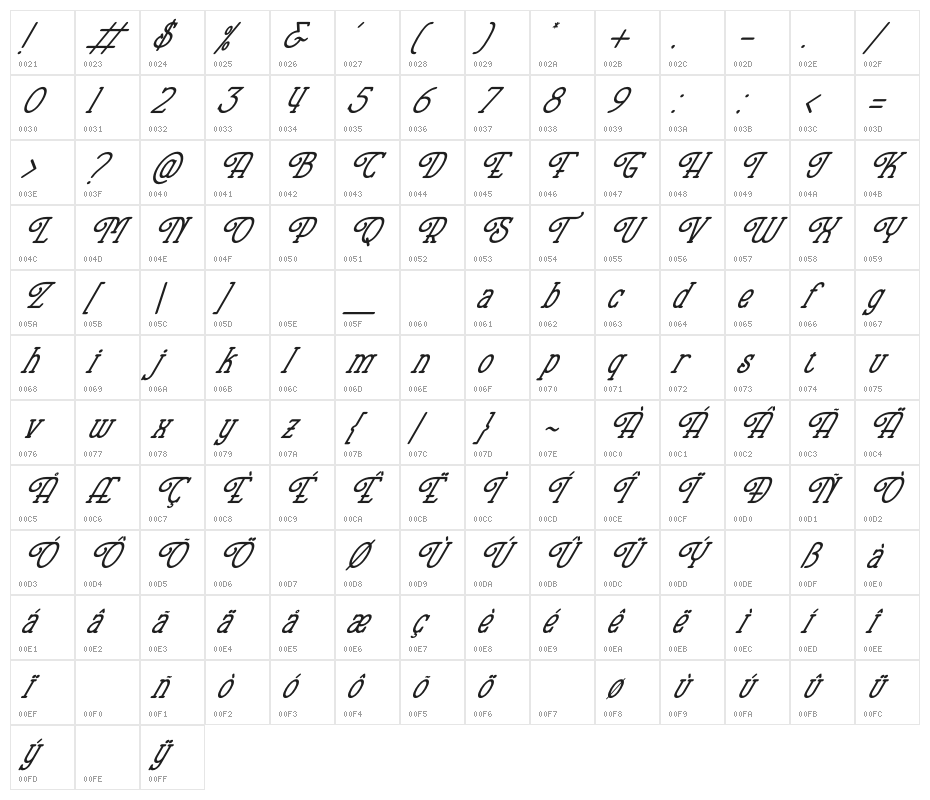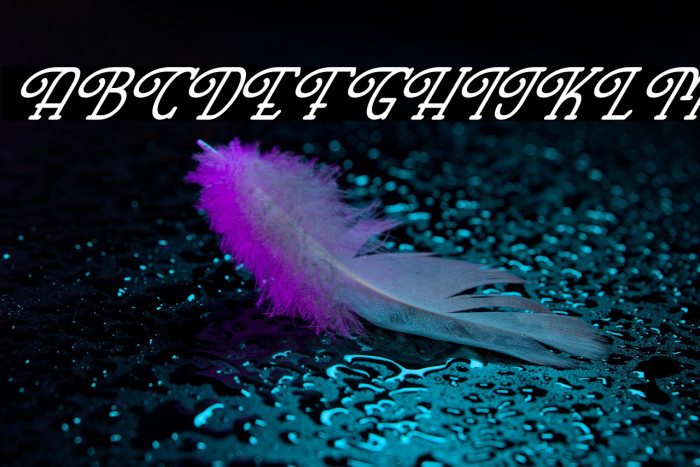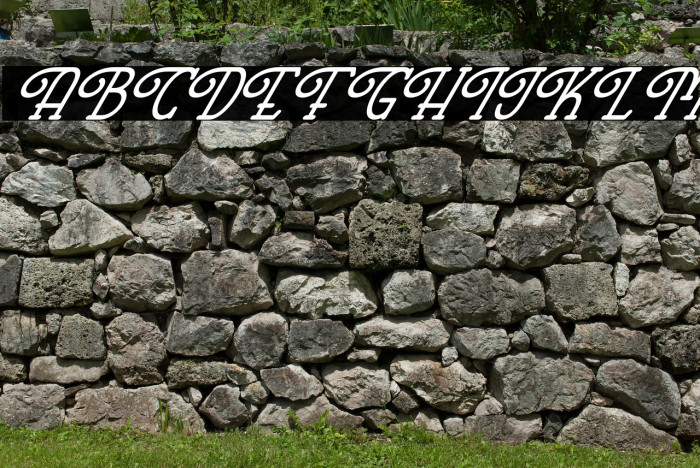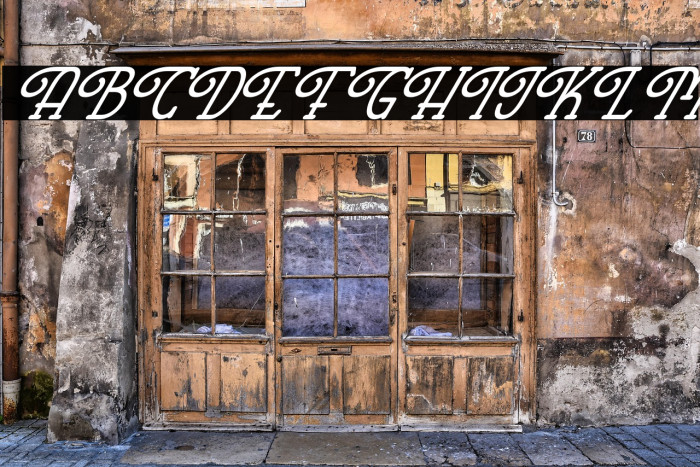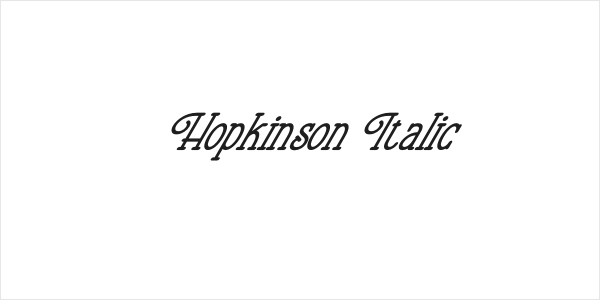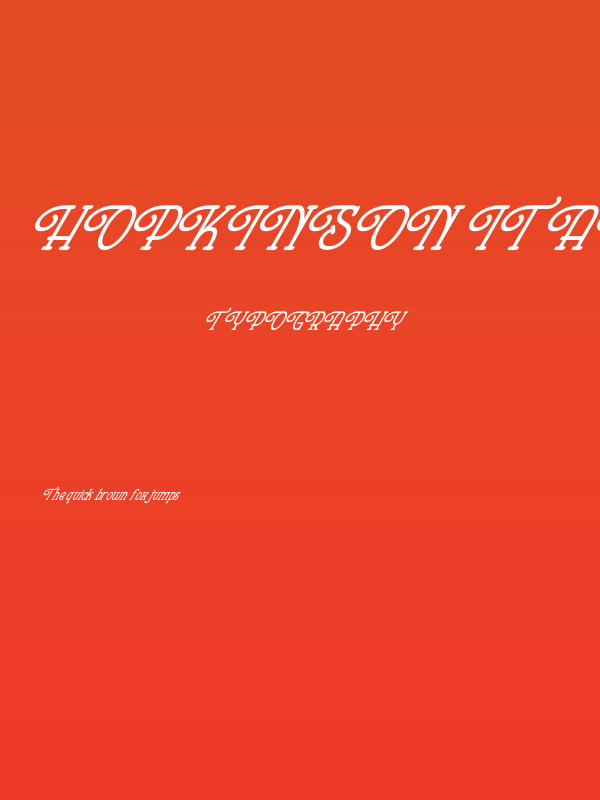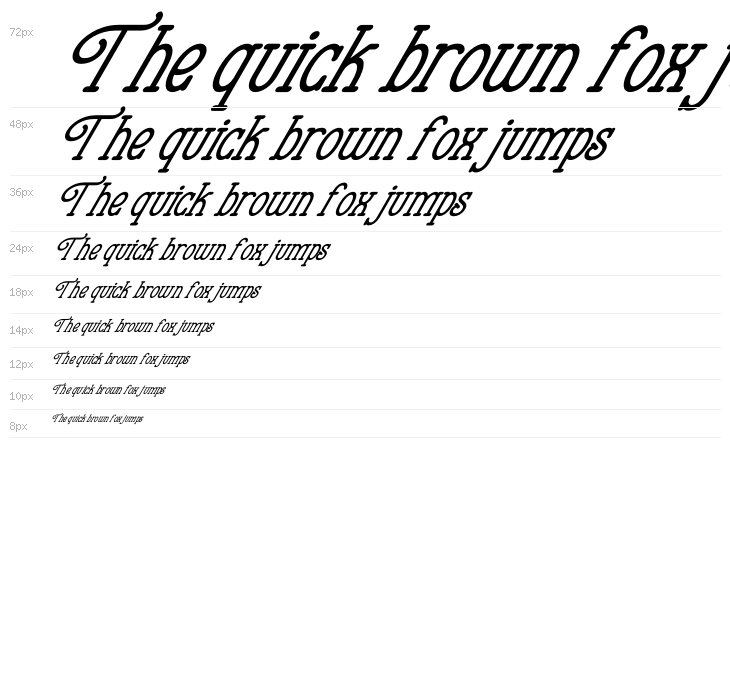
Hopkinson Italic Font
Hopkinson Italic Description
This font exudes a classic and elegant style with its italicized form, characterized by smooth, flowing lines and a slight slant to the right. The uppercase letters are bold and prominent, while the lowercase letters maintain a consistent flow, enhancing readability. The numerals are well-proportioned, matching the overall aesthetic of the letters. Special characters are designed with the same attention to detail, ensuring a cohesive look across all glyphs. The font's design is reminiscent of traditional calligraphy, making it suitable for projects that require a touch of sophistication and grace.
| Proposed Projects | Ideal for wedding invitations, formal event programs, elegant branding, and luxury product packaging. |